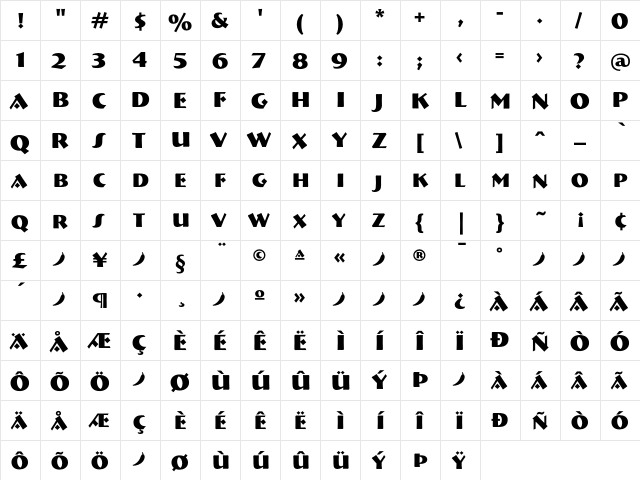
Bremen Bold Font Preview
Bremen Bold
Bremen Bold Font Details
Design Context for Bremen Typeface
Bremen is a composed and adaptable typeface that performs quietly and consistently across a wide range of design contexts. Its bold stroke weight gives it real presence on the page.